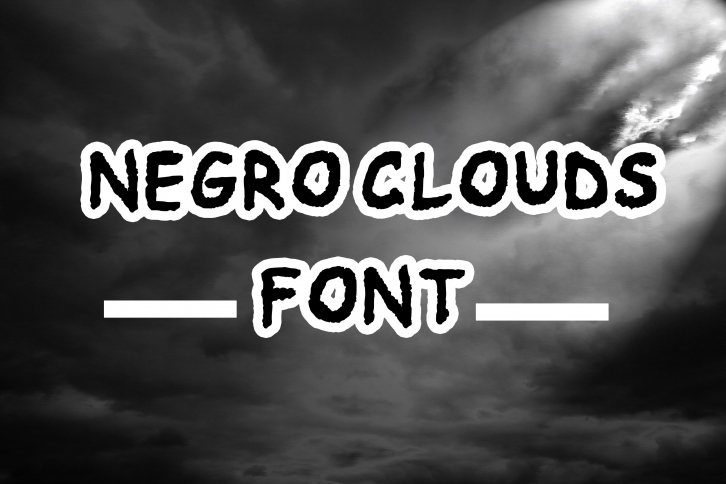
Negro Clouds is a spectacular display font with a spooky feel that you can use to create amazing Halloween designs, book covers, Halloween promotional sales flyers, and much more!